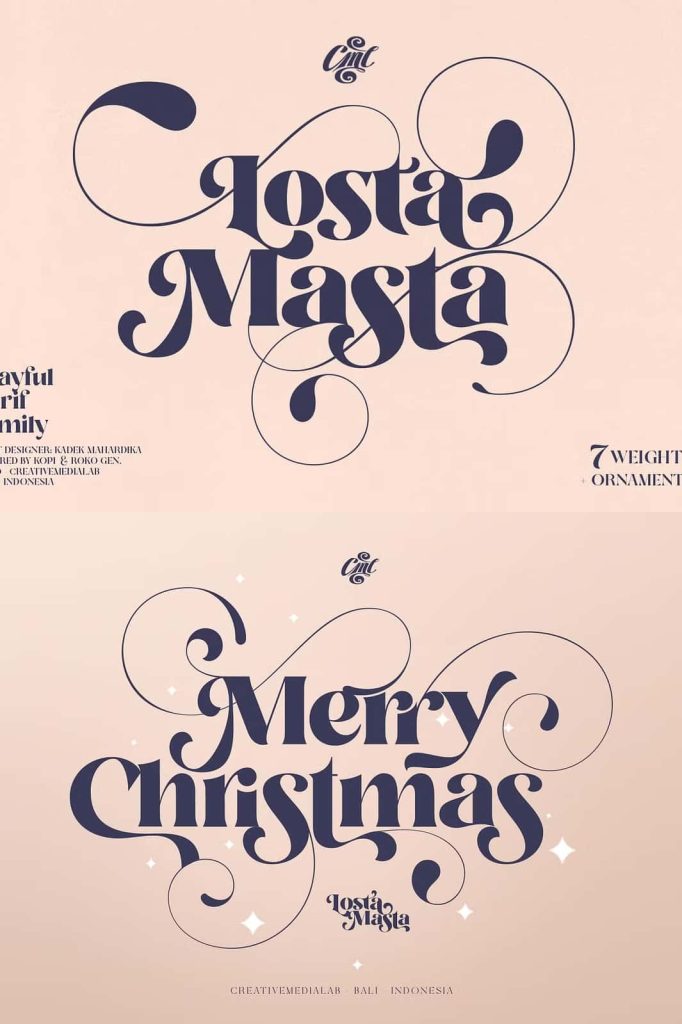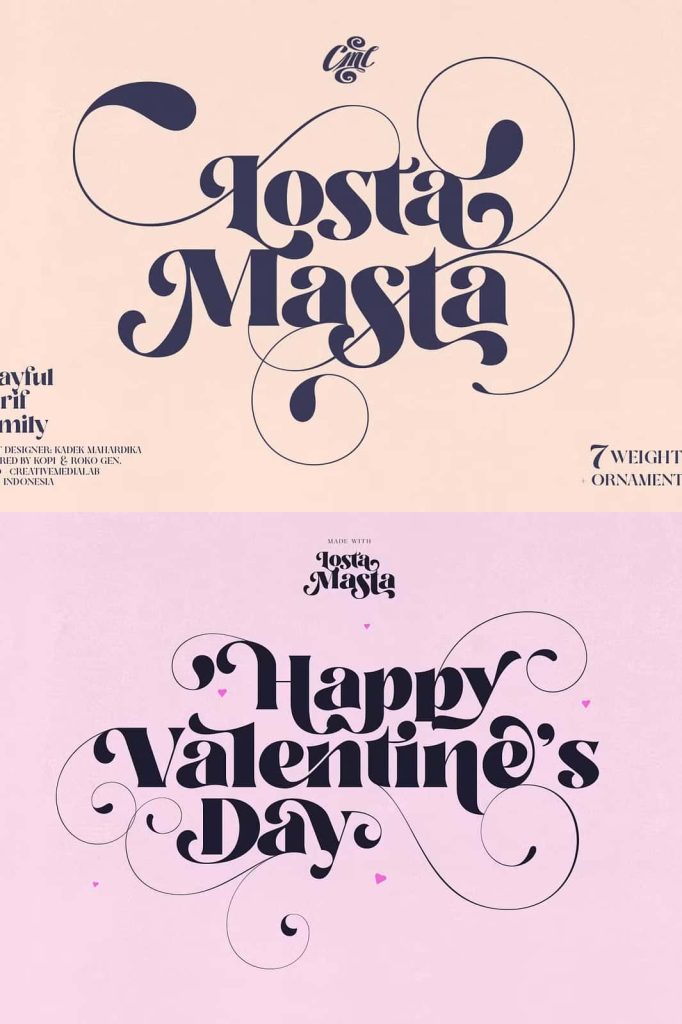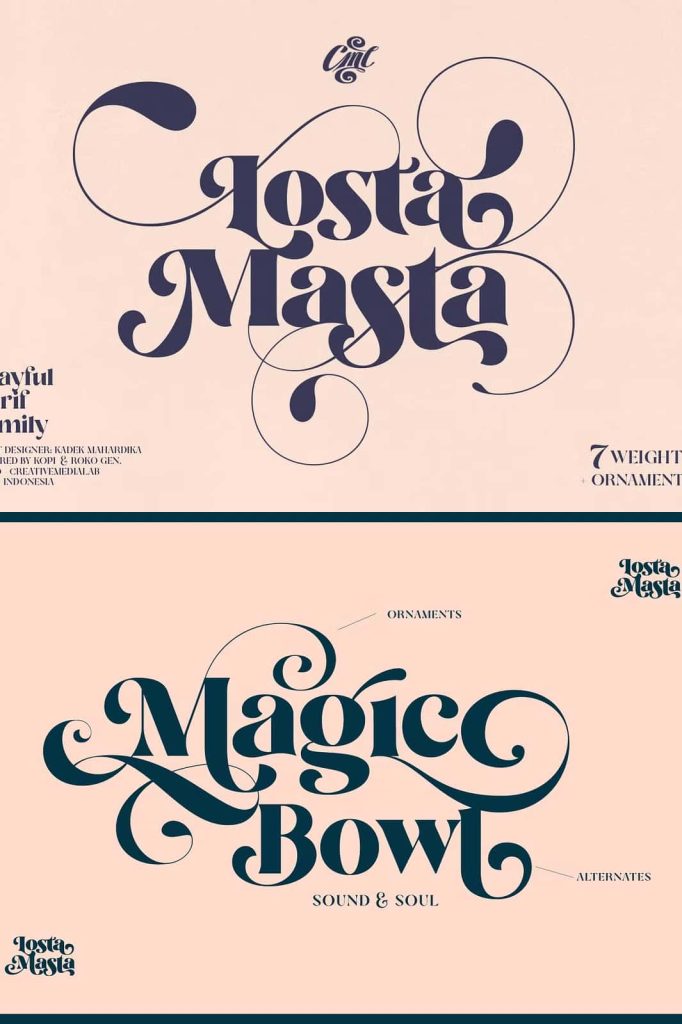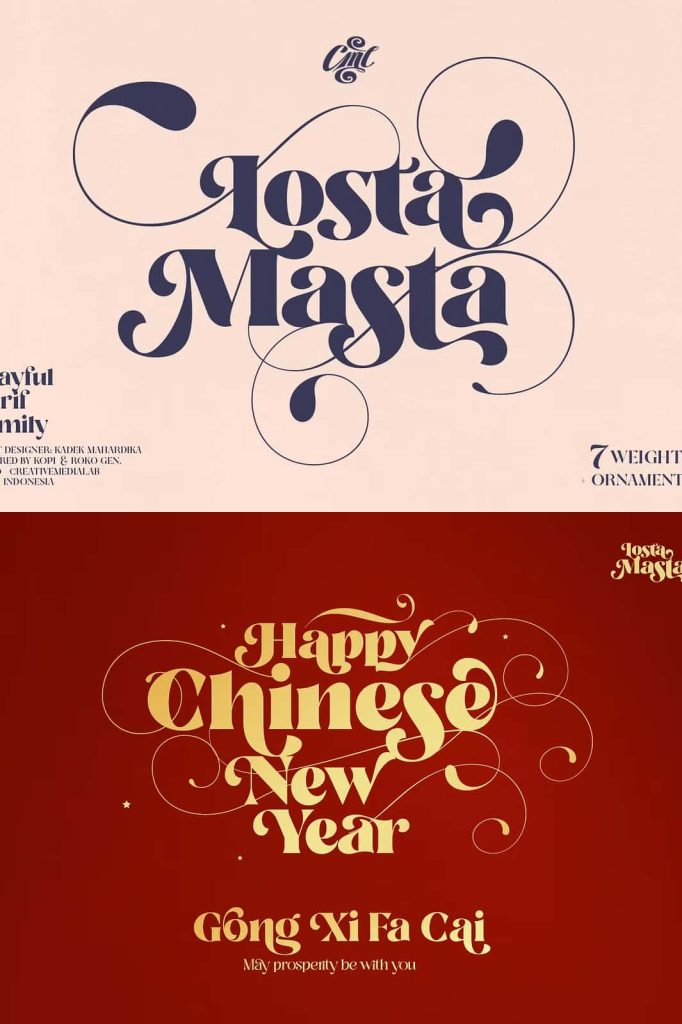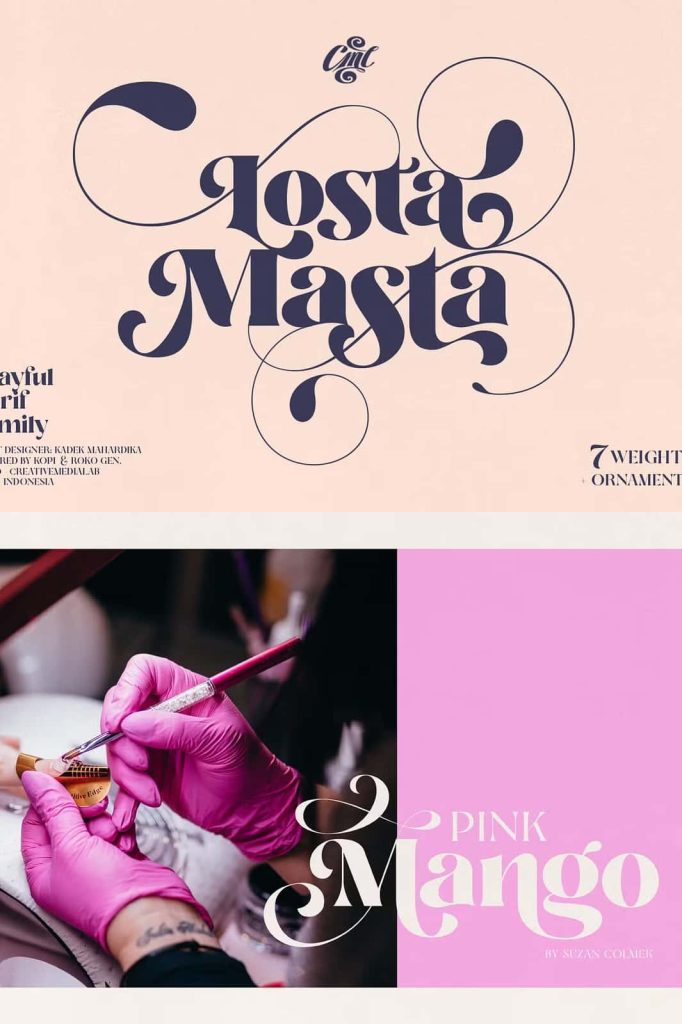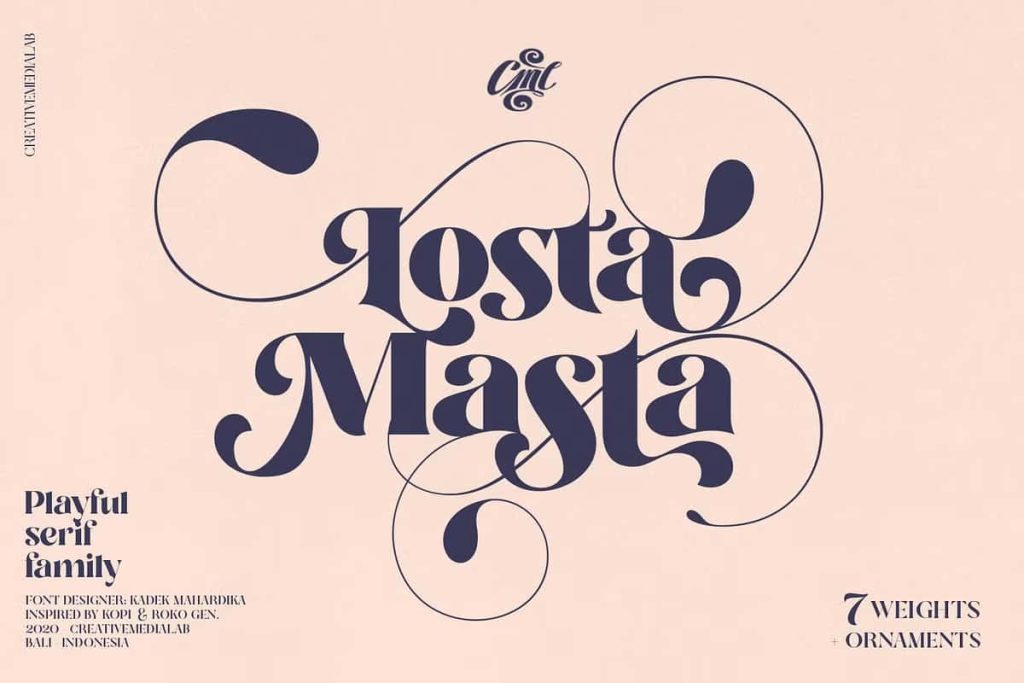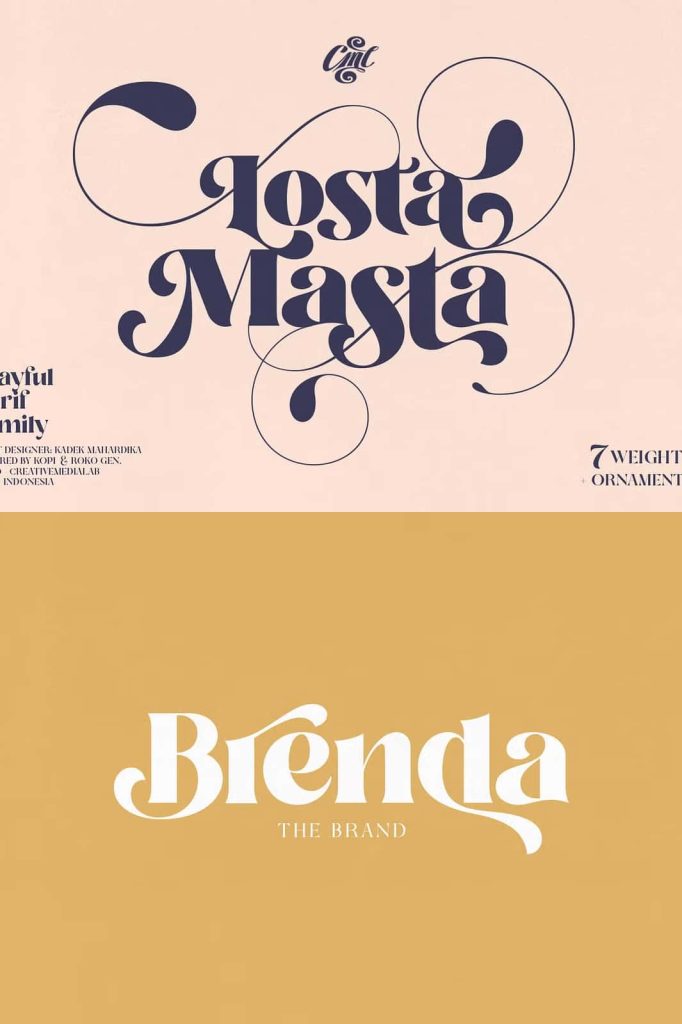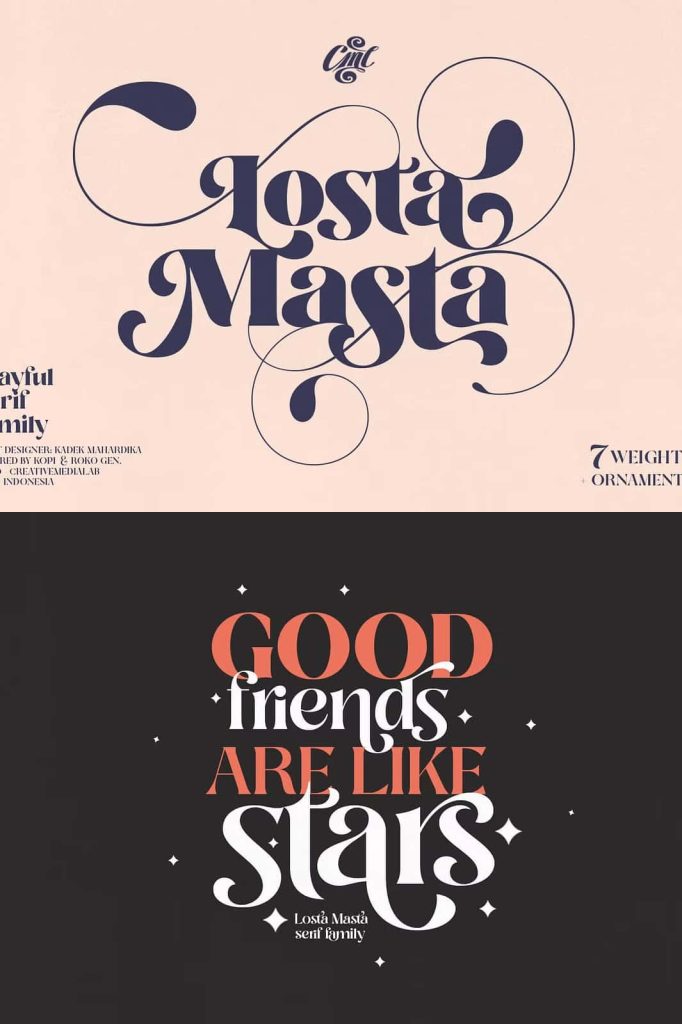
Losta Masta – fun and playful serif family.
Unique, playful and versatile serif family with 40+ ligatures and 100+ alternates can combine to get curves and beautiful shapes just in seconds.